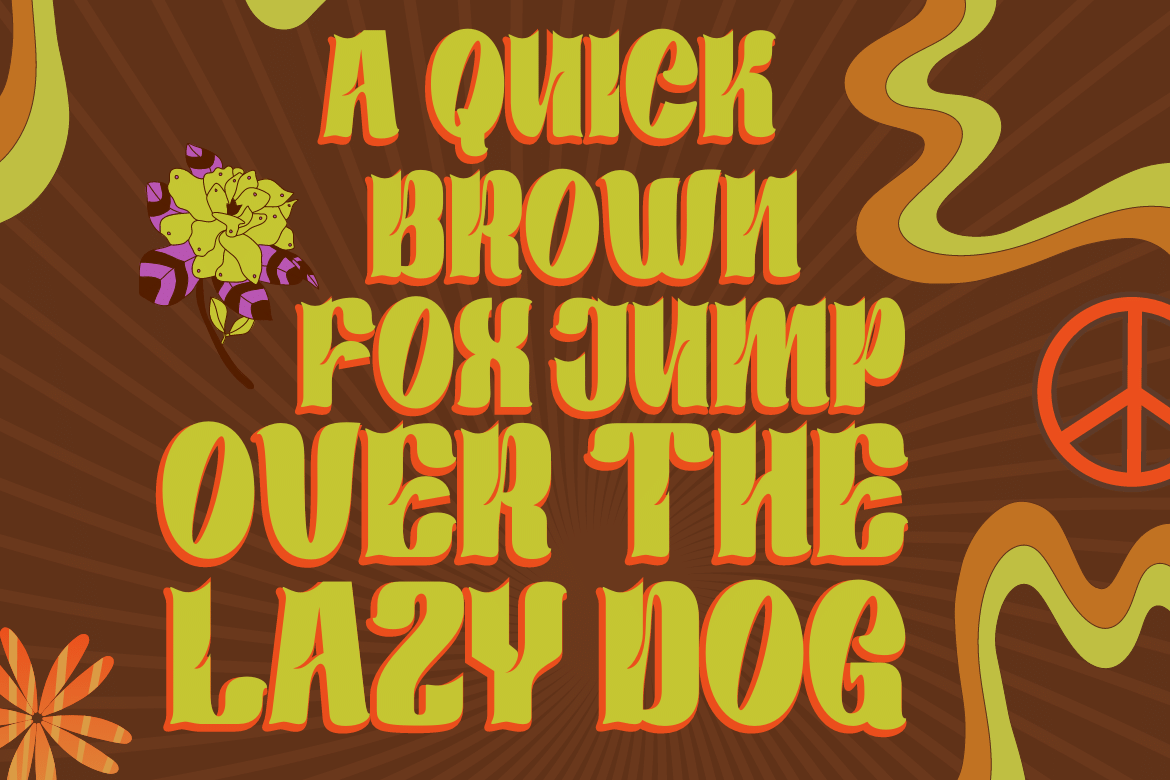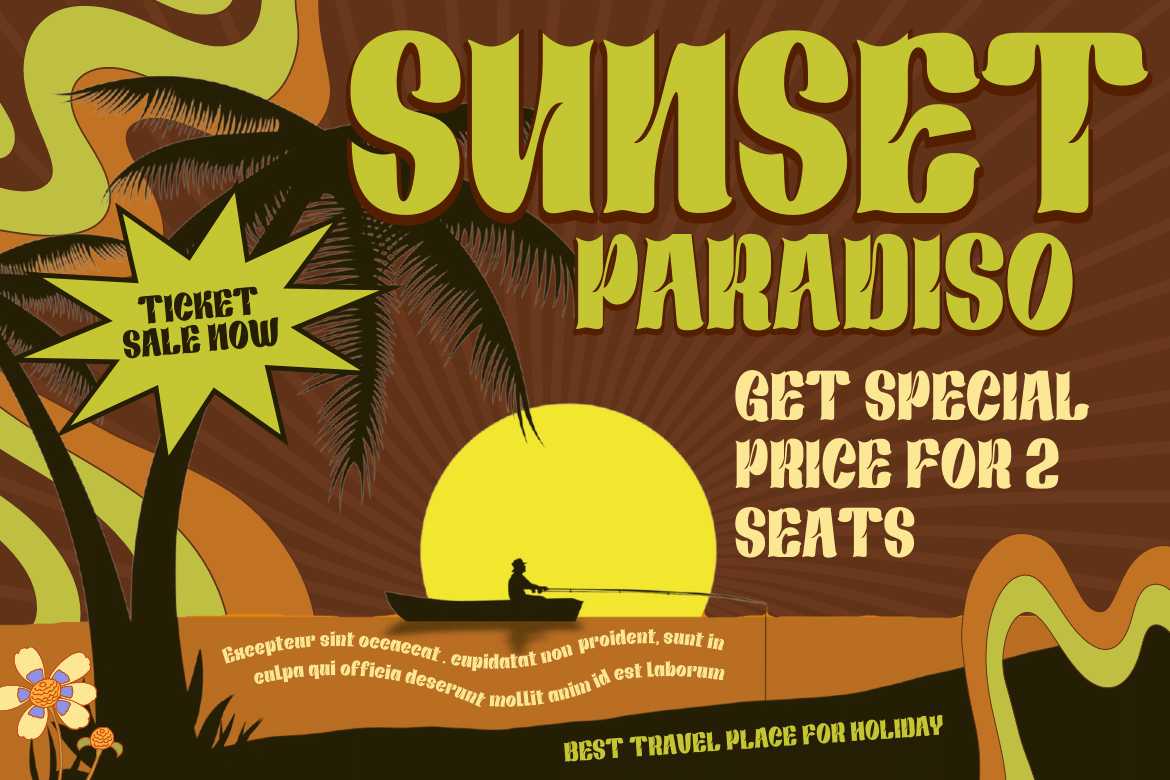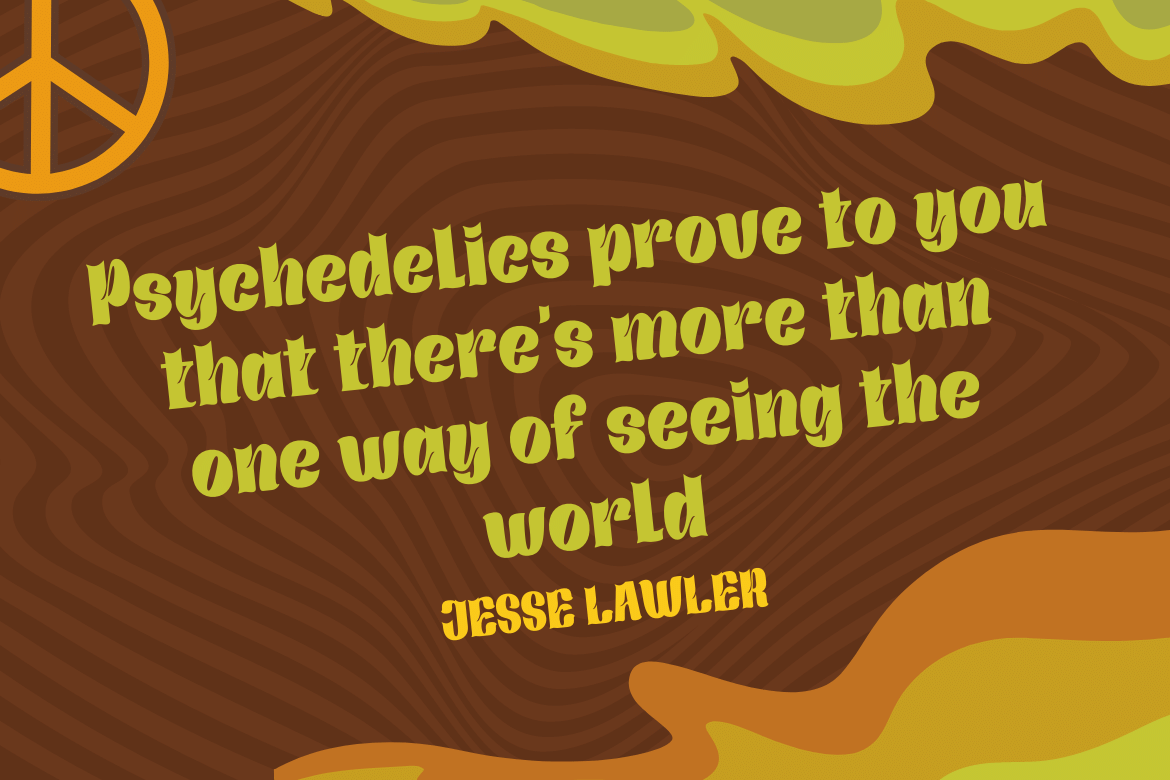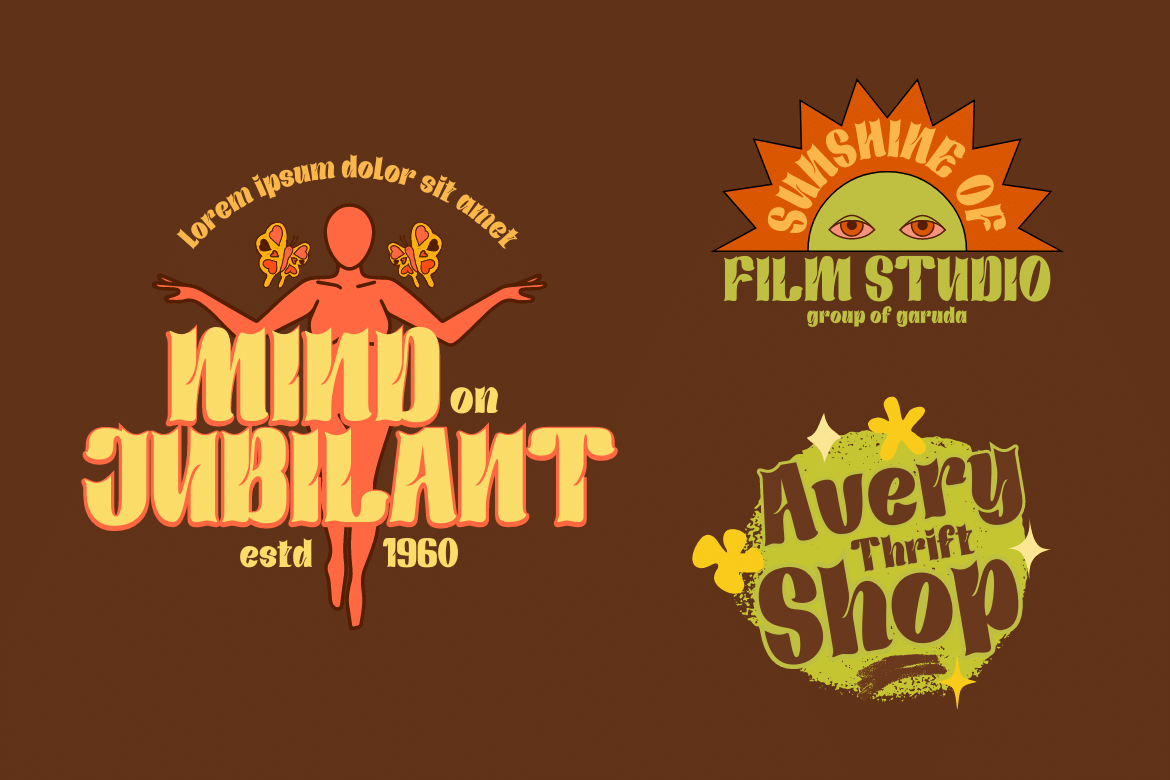
Rastiku Font
Rastiku Display Font is a bold, fun, and retro character, for all your design purposes! This is a versatile and vintage typeface that is perfect for any of your creative projects and will help make your designs stand out. The ideal font for your readers because it’s easy to read and ideal for branding, product packaging, or just to add a little flair to your editorial work.